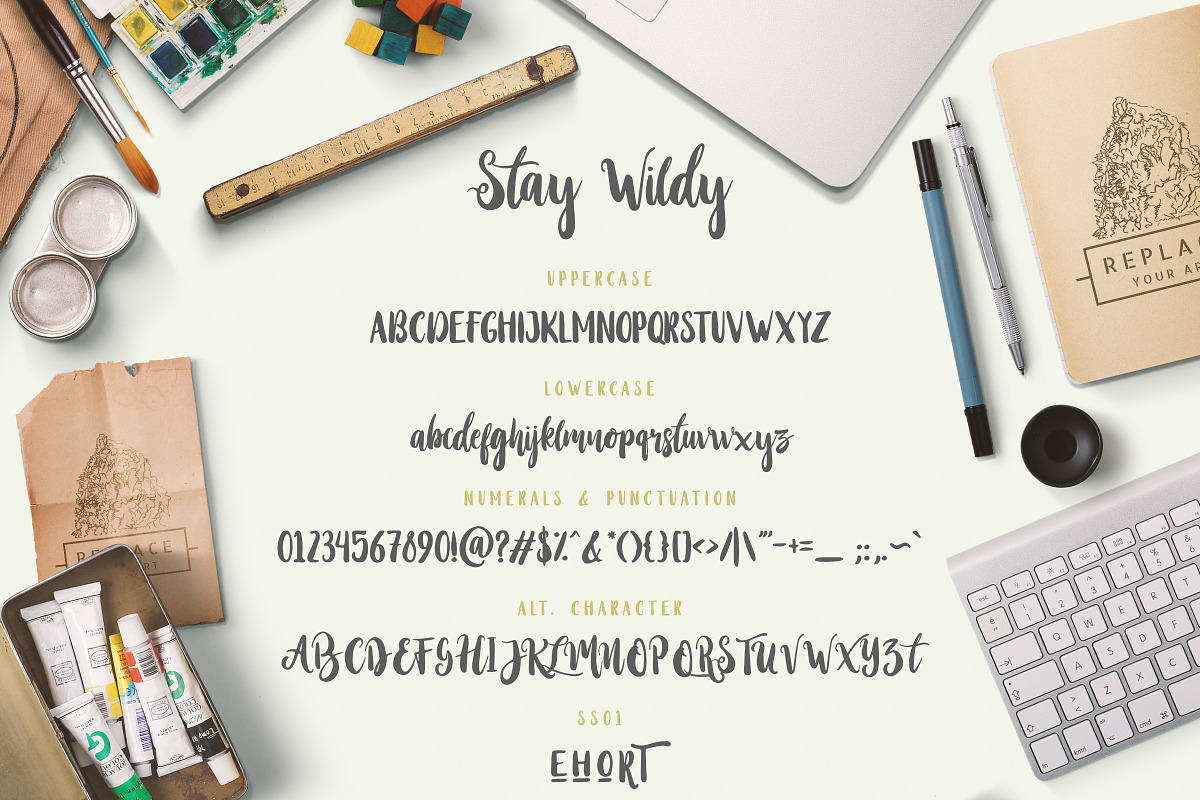
Stay Wildy
Hello friend, let me introduce my product Stay Wildy!
Stay Wildy is my first script font, they have a verry handwritten character inspired by modern calligraphy style. Stay Wildy come with one font style, but if you're use the uppercase letter this font will form a sans character and will look like 2 different fonts. Suitable and applicable to create typography design, christmas card, branding, logos, product packaging, invitation, qoutes, t-shirt, label poster etc.
Lowercase
Punctuation and Number
Multilingual Language
Alternate Character & Ligature
Stylishtic Character